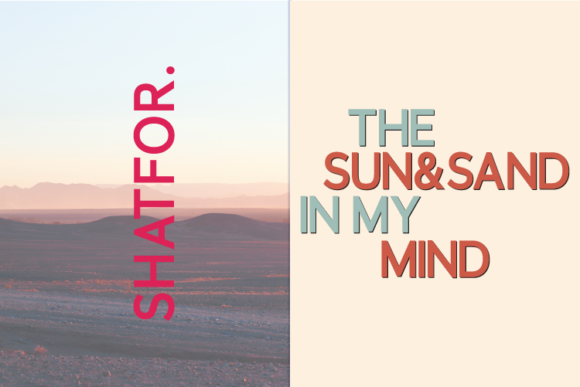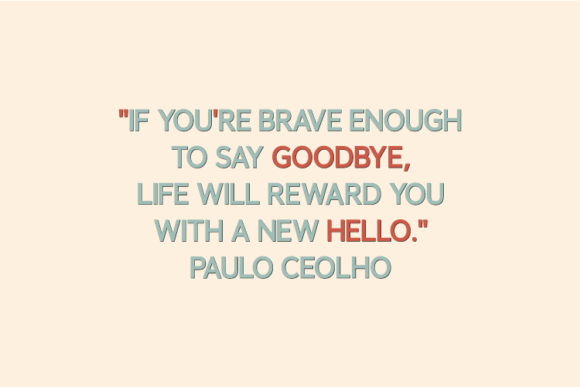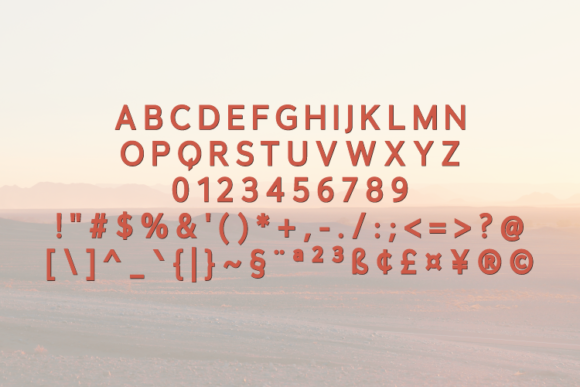
Introduction to Shatfor Font
Have you ever found yourself staring at a blank canvas, waiting for inspiration to strike? You’ve got a creative project in mind, but something’s missing. That’s when I discovered the power of a well-designed font – specifically, the Shatfor Font. This sleek and modern sans serif font has been a game-changer for my design projects, and I’m excited to share its benefits with you.
Whether you’re working on a high-quality logo, a digital graphic, or a web design, the Shatfor Font is an excellent choice. Its clean lines and transparent background make it a versatile design resource that can be easily matched to a wide range of creative ideas. Plus, the best part? It’s available for free download, making it an invaluable asset for designers on a budget.
Key Features of Shatfor Font
- High-quality, unique font design ideal for creative projects, with a transparent background for versatile usage.
- Designed with a high resolution of 300 DPI, ensuring crisp and clear typography in various applications.
- Comes in a range of sizes, from 12 to 72 points, allowing for precise control over font size and style.
- Unique characteristics include a modern aesthetic and customizable options for creative project branding.
Honest Review: Shatfor Font
As a designer, I’m always on the lookout for high-quality design resources to elevate my creative projects. The Shatfor Font is one such find that has caught my attention recently. Here’s my take on this font.
- Unique and creative design: The Shatfor Font boasts an eye-catching design that’s perfect for adding a touch of personality to your projects.
- Transparent background: The font’s transparent background allows for seamless integration with images and backgrounds, making it a great choice for graphic designers.
- Limited language support: The Shatfor Font only supports a limited number of languages, which might be a drawback for designers working on international projects.
- No bold or italic styles: The font lacks bold and italic styles, which might not be ideal for certain design applications.
Overall, the Shatfor Font is a solid addition to any designer’s collection. While it has some limitations, its unique design and free availability make it a great resource for creative projects. I’d definitely recommend giving it a try and seeing how it can elevate your designs.
The Shatfor Font is a high-quality design resource perfect for creative projects. With its unique style and versatility, it’s a must-have for designers looking to elevate their work.
Tips for Getting the Most Out of Shatfor Font
Use the Shatfor Font on a transparent background to create a seamless design. Experiment with different font sizes and styles to add visual interest to your project.
The Shatfor Font is perfect for:
- Creating eye-catching social media graphics
- Designing professional-looking presentations
- Adding a touch of elegance to your website or blog
Alternatives to Shatfor Font
Montserrat is a popular sans-serif font that is perfect for creating a clean and modern design for your creative project. It has a transparent background and is available for free download. Montserrat is a high-quality font that is ideal for headings and titles in your design.
Compared to Shatfor Font, Montserrat has a more modern and sleek design, making it a great choice for designers who want to create a contemporary look. It also has a wide range of weights and styles, making it a versatile design resource.
Lato is a beautiful sans-serif font that is perfect for creating a sophisticated and elegant design for your creative project. It has a transparent background and is available for free download. Lato is a high-quality font that is ideal for body text and paragraphs in your design.
Compared to Shatfor Font, Lato has a more refined and polished design, making it a great choice for designers who want to create a professional look. It also has a wide range of weights and styles, making it a versatile design resource.